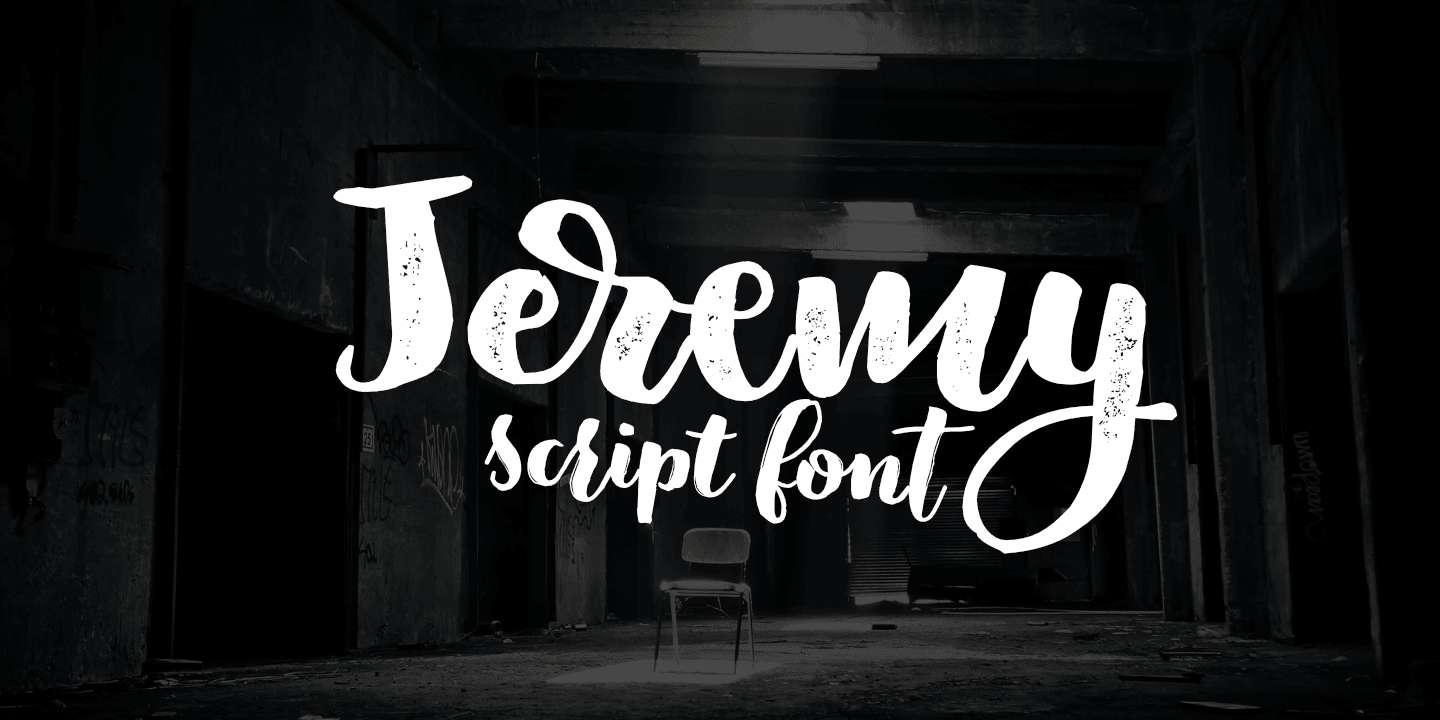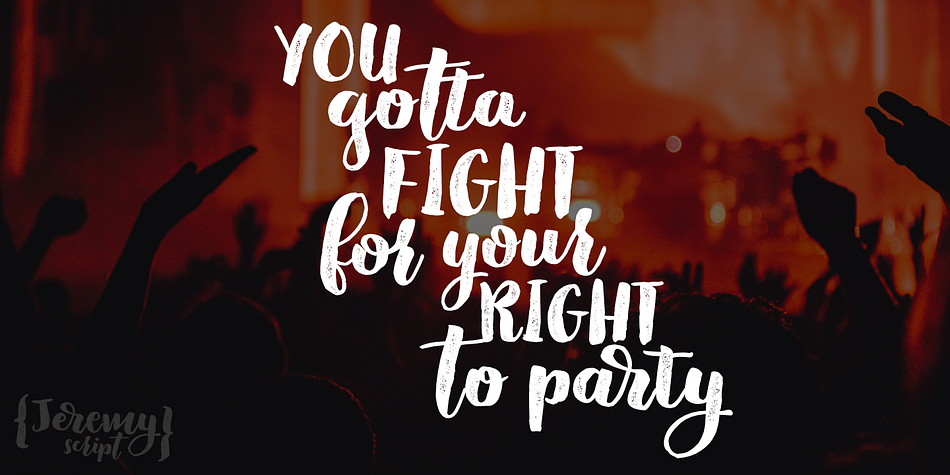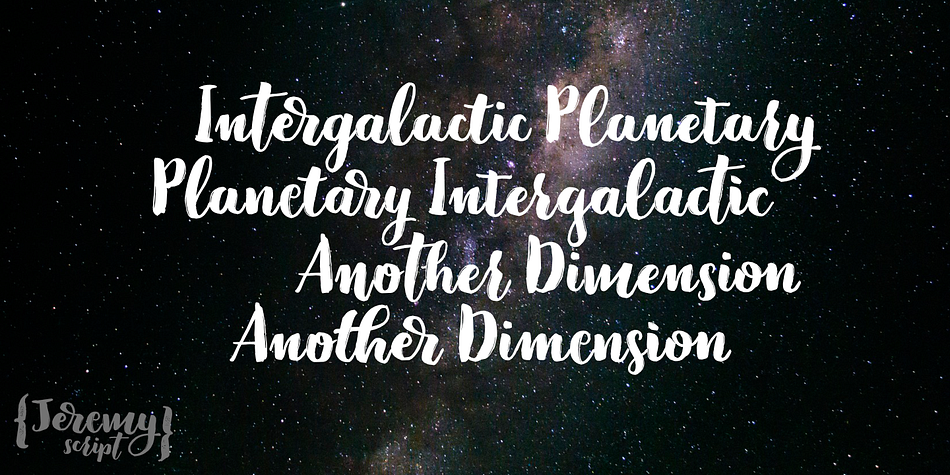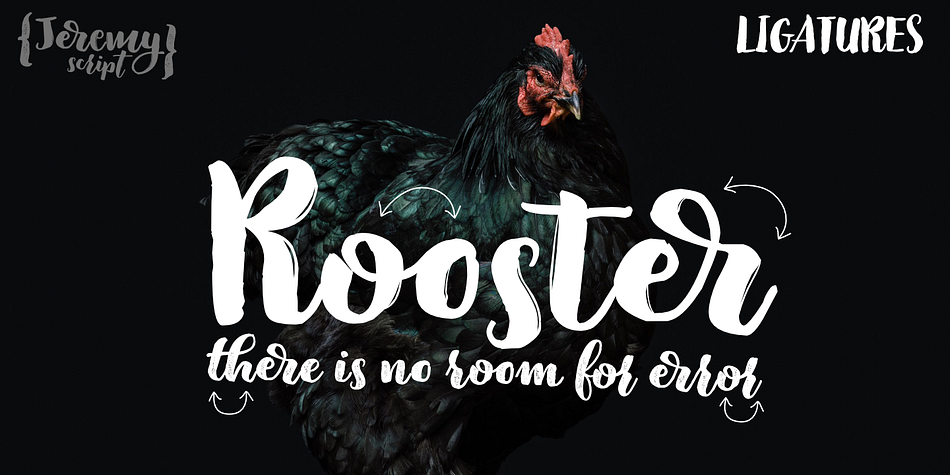
Designed by Bartek Nowak, Jeremy is a script and brush script font family. This typeface has three styles and was published by GRIN3 (Nowak).
Jeremy is a handwritten, brush script with ligatures and contextual alternates to help with flow and readability.
Every lowercase letter has three variations. When the font is used in OpenType-savvy applications, the 3 variants of glyphs are automatically alternated to achieve a random-like effect.
Language support includes Western, Central and Eastern European character sets, as well as Baltic and Turkish languages.